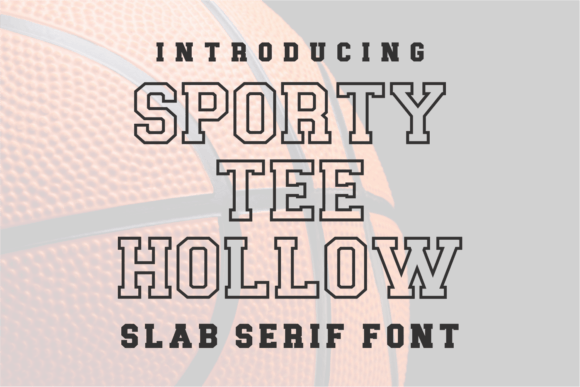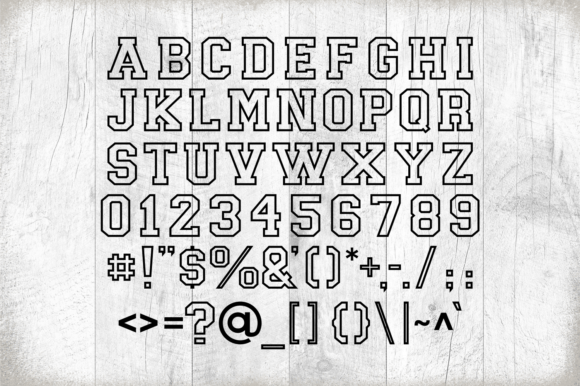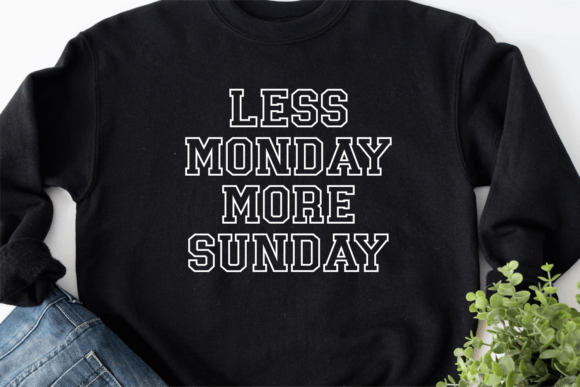
Sporty Tee Hollow Font
Sporty Tee Hollow is a hollow sport font. It looks powerful and is created to add a vibrant touch to your sport-inspired designs. Suitable for sports design, team, jersey, league, movie, documenter, film, logo, poster, game, book cover, headlines, title, and many more projects.